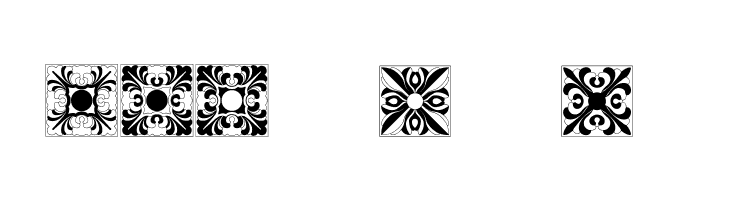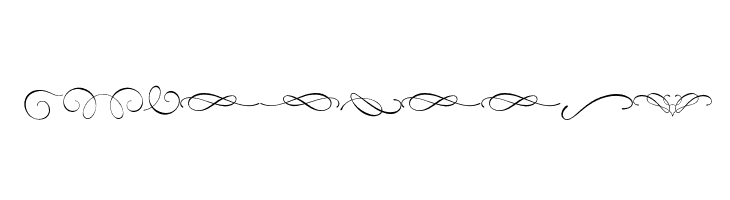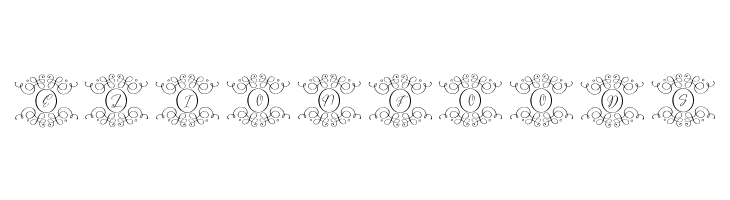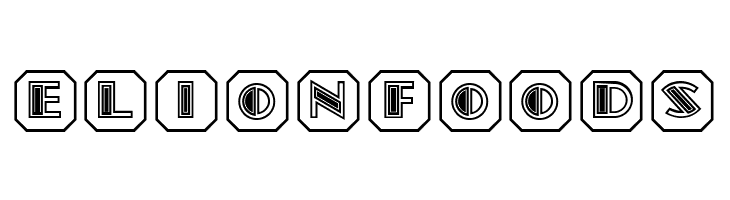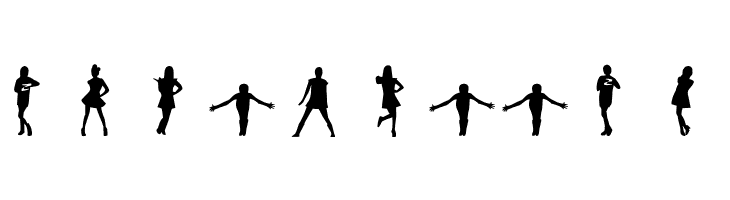
• Celtic Knots
Ornamental font with diverse Celtic knotwork symbols.
• Fleur de Lys Regular
Ornamental font with diverse fleur-de-lys motifs.
• Vorlagen Regular
Ornamental font with decorative tile patterns for each character.
• GlukFrames05
Intricate geometric patterns with symmetrical and ornate designs.
• Floresta
Hand-drawn botanical and geometric decorative set.
Intricate and elegant swashes with flowing, ornate curves.
• Swirl Monogram
The image contains decorative monogram-style swirls, not a valid font.
• Shion Chinese Monogram
A decorative monogram font with Chinese-inspired circular borders around bold capital letters.
• Morava Capitals Regular
A bold, geometric font with octagonal borders and a three-dimensional effect.
• Cloverz
A playful dingbat font with clover icons and dancing silhouettes.